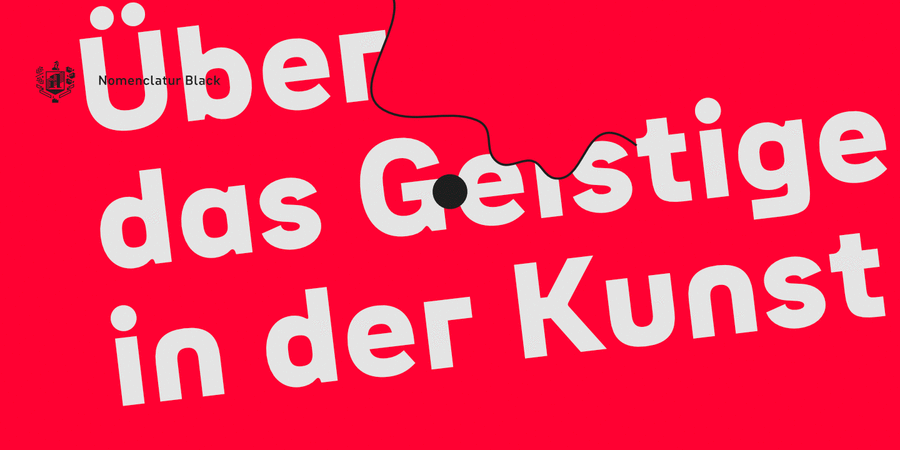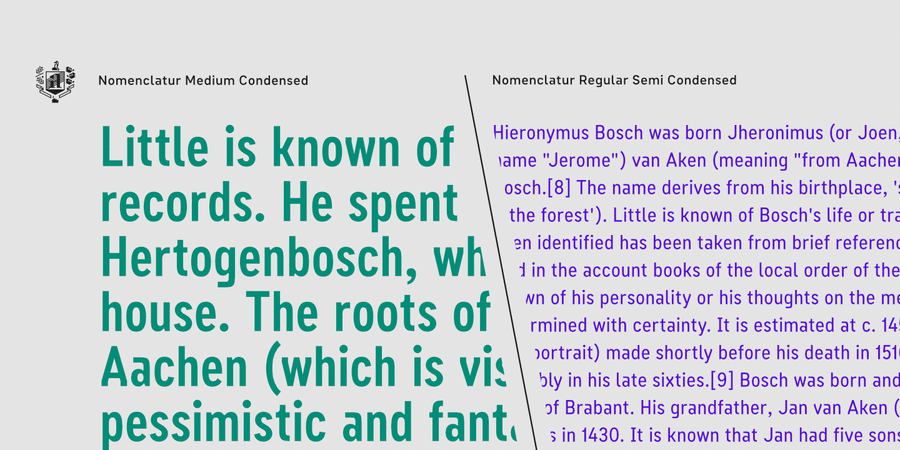
Nomenclatur (16 fonts)
About NomenclaturThe typeface was created under the influence of German tabular inscriptions. Especially, DIN font influenced on Nomenclatur graphic. The typeface is intended for use in architectural and design topics, instructions and manuals. The font has the aesthetics of the Bauhaus and other constructivist movements. Characters of font are designed with high intelligibility, which makes it readable in a small size. The lowercase letter "l" has a tail, so as not to confuse it with the capital letter "I", which has serifs. It avoids confusion in words like "Illinois". The font is well suited for the design of signs and navigation texts. A wide selection of font styles allows you to design complex typography. The font family includes: 15 styles, a variable font with two axes of weight and width, a set of alternative characters that will allow you to create different moods, Western European Latin and standard Cyrillic support, more than 3,600 kerning pairs and beautiful ampersand. The typeface was designed by Alexey Popovtsev in 2020.
Features of font family NomenclaturThe hit of the decade:
Associations for font family NomenclaturTypeface personality and character:
accurate, flat, rectangular, stable, technogenic, static, urban, simple, laconic, thin, cold, minimalistic, globalized, globalistic, urbanistic, clever, compressed, slim, tall, engineering, schematic, convincing, solid, serious, reliable, self-assured, strong, industrial, authoritative, automatic, steel, robust, strict, business, modern, monotone, logical, pragmatic, practical, artificial, machine, motivating, tough, railway, responsible, close-fitting, loud, iron, ambitious, architectural, workman, severe, sharp, cutting, important, military, heavy, rude, brutal, straight, army
equipment, device, architecture, science, design, city, machine tool, tool, urban studies, gadget, navigation, IT specialist, IT, technology, engineer, factory, automation, institute, space, news, industry, power station, energy industry, skyscraper, army, weapons, mechanical engineering, port, constructor, construction, building, railway carriage, scheme, railway, astronomy, cinema, fitness equipment, repairs, architect, workman, rocket, satellite, airsoft, truck, trucker, steel-maker, oil, motor, engine, aviation, aircraft, x-ray, code, packing Typeface associated with age: